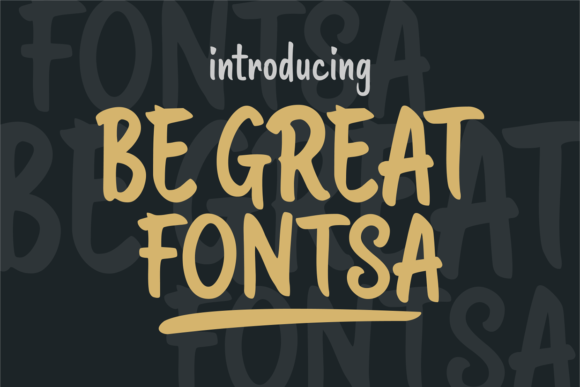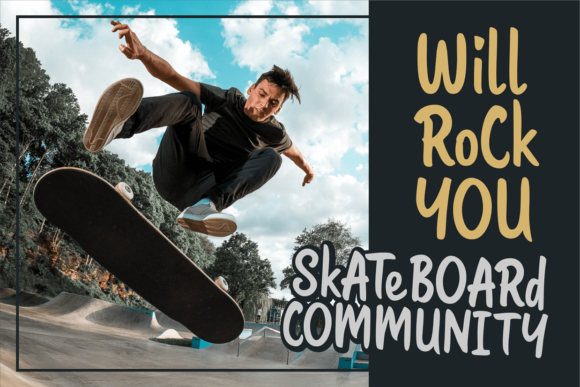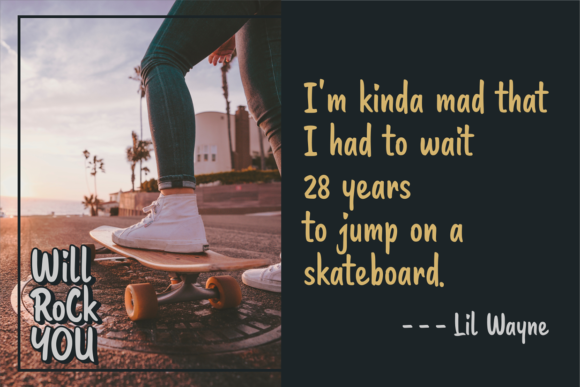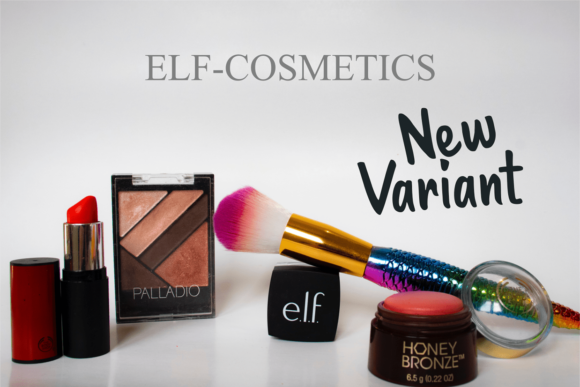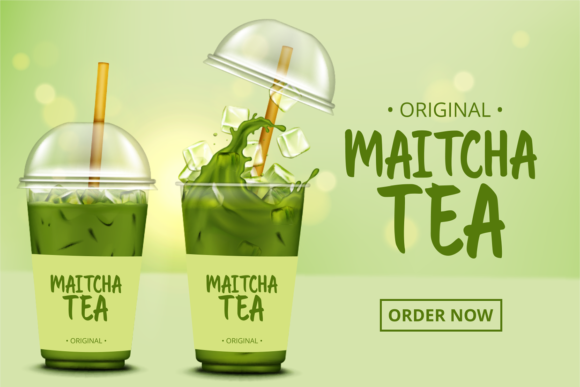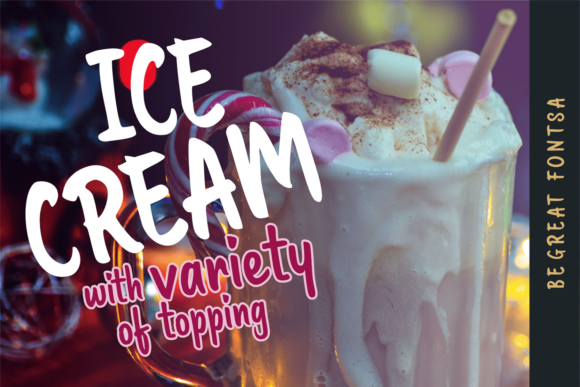
Be Great Fontsa Font
About Be Great Fontsa Font
Be Great Fontsa is a casual, handwritten font, created by using a brush pen. This font is the perfect fit for all of your logos, branding, social media, and crafty DIY projects.